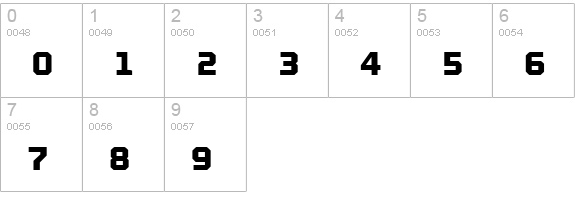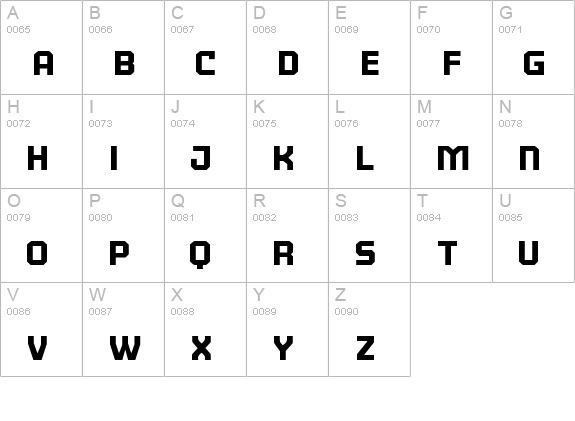
MTV2C Font Details
The MTV2C font is a sleek and modern typeface that exudes creativity and style. With its bold and dynamic letterforms, MTV2C is perfect for making a statement in any design project. This versatile font can be used for a variety of purposes, from branding to advertising to social media graphics. What makes MTV2C even more appealing is that it is completely free to download! That's right, you can get your hands on this eye-catching font at no cost at FontsMarket.com. So go ahead and elevate your designs with the MTV2C font today!